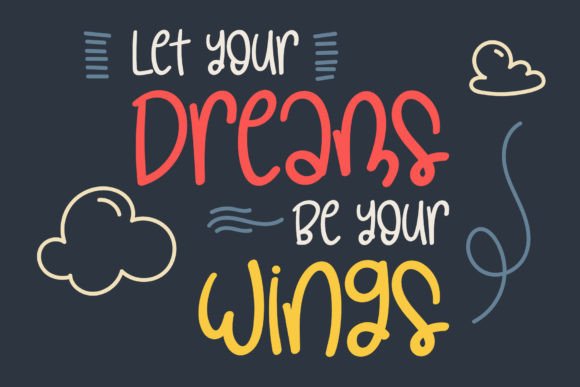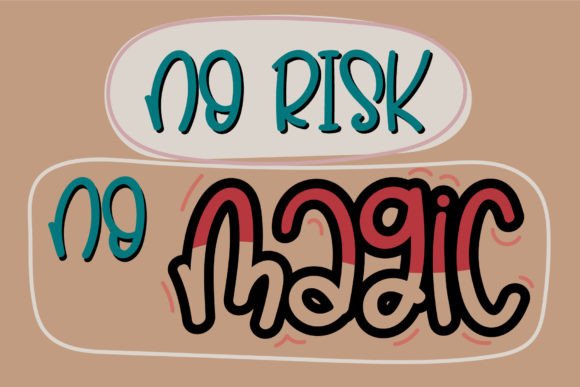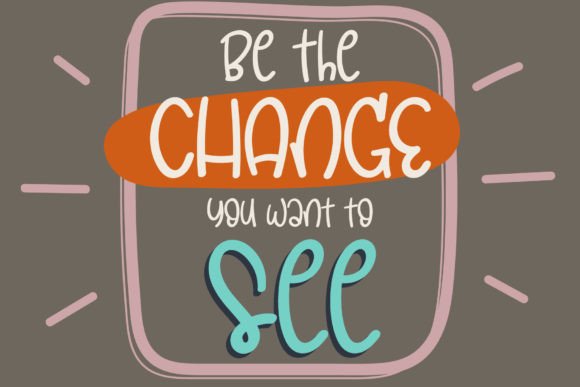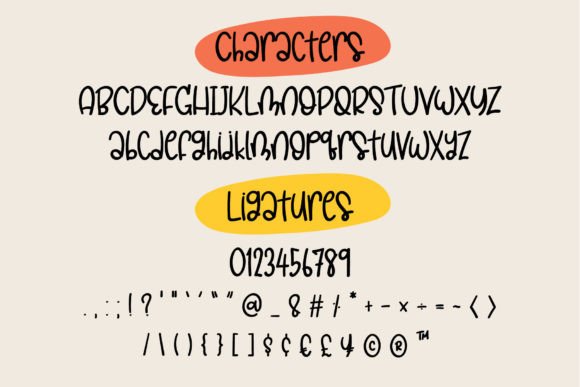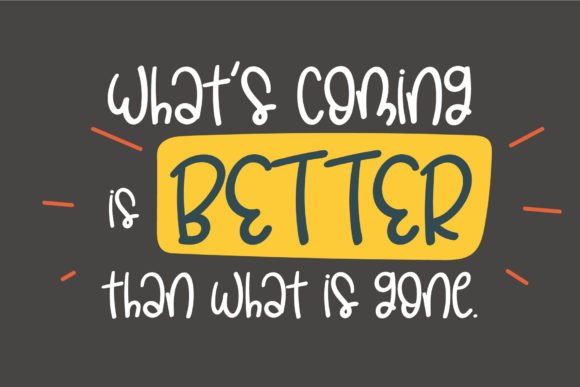
Introducing College Town Font: The Ultimate Friendly Handwritten Font
Are you a designer, crafter, or DIY enthusiast looking for a font that can add a personal touch to your creative projects? Look no further than College Town Font, a cute and casual handwritten font that exudes an incredibly friendly feel. In this article, we’ll dive into the world of College Town Font and explore its features, uses, and benefits for designers and crafters alike.
The Charm of College Town Font
College Town Font is a beautifully crafted handwritten font that is perfect for adding a touch of warmth and personality to your designs. Its casual and friendly feel makes it ideal for a wide range of creative projects, from social media graphics and Instagram posts to DIY crafts and calligraphy scripts. With College Town Font, you can turn any creative idea into a true piece of art that resonates with your audience.
Features of College Town Font
- Cute and Casual Design: College Town Font features a playful and informal design that is perfect for creating friendly and approachable content.
- Handwritten Style: The font’s handwritten style gives it a personal and authentic feel that is perfect for DIY projects and crafts.
- Friendly Feel: The font’s friendly feel makes it ideal for creating content that resonates with your audience and leaves a lasting impression.
- Multipurpose: College Town Font is versatile and can be used for a wide range of creative projects, from social media graphics to calligraphy scripts.
Uses of College Town Font
College Town Font is a versatile font that can be used for a variety of creative projects, including:
- Instagram Graphics: Add a personal touch to your Instagram posts and stories with College Town Font.
- DIY Projects: Use College Town Font to create beautiful calligraphy scripts for your DIY projects, such as handmade cards, gift tags, and more.
- Social Media Graphics: Create engaging social media graphics, such as Facebook posts, Twitter headers, and more, with College Town Font.
- Crafting: Use College Town Font to create beautiful and unique crafts, such as handmade journals, planners, and more.
Benefits of Using College Town Font
Using College Town Font can bring numerous benefits to your creative projects, including:
- Unique and Personal Touch: College Town Font adds a unique and personal touch to your designs, setting them apart from others.
- Easy to Read: The font’s clear and readable design makes it easy for your audience to understand and engage with your content.
- Time-Saving: With College Town Font, you can create beautiful and professional-looking designs in no time, saving you time and effort.
- Versatility: The font’s versatility makes it ideal for a wide range of creative projects, from social media graphics to DIY crafts.
Tips for Using College Town Font
Here are some tips for using College Town Font effectively in your creative projects:
- Experiment with Colors: Try pairing College Town Font with different colors to create unique and eye-catching designs.
- Mix and Match Fonts: Combine College Town Font with other fonts to create interesting and dynamic designs.
- Use it for Headings and Titles: Use College Town Font for headings and titles to add a personal touch to your designs.
- Practice Calligraphy: Practice calligraphy with College Town Font to create beautiful and unique lettering pieces.
College Town Font is a beautiful and versatile handwritten font that is perfect for designers, crafters, and DIY enthusiasts. Its cute and casual design, friendly feel, and multipurpose uses make it an ideal font for a wide range of creative projects. With College Town Font, you can add a unique and personal touch to your designs, making them stand out from the crowd. So why wait? Get creative with College Town Font today and turn your ideas into true pieces of art!